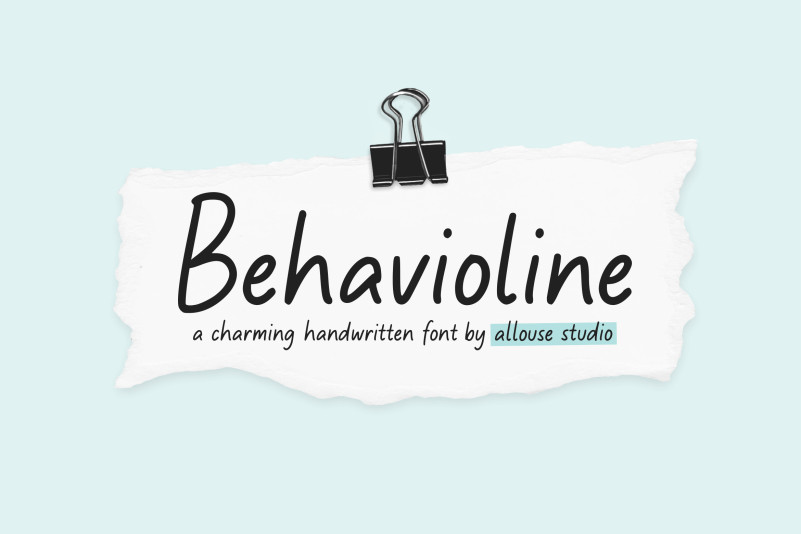
Behavioline Handwritten Font is a simple, yet classy typeface. It includes beginning and ending swashes which are perfect for adding a stylish and elegant look to your designs.